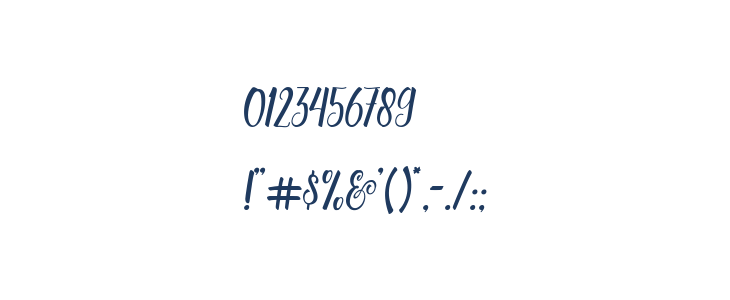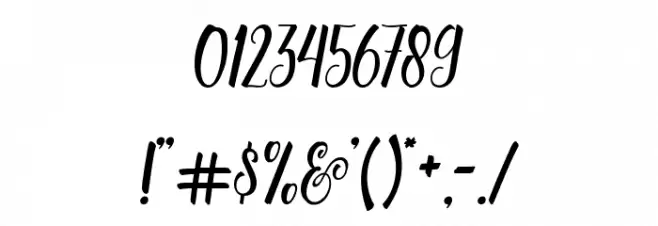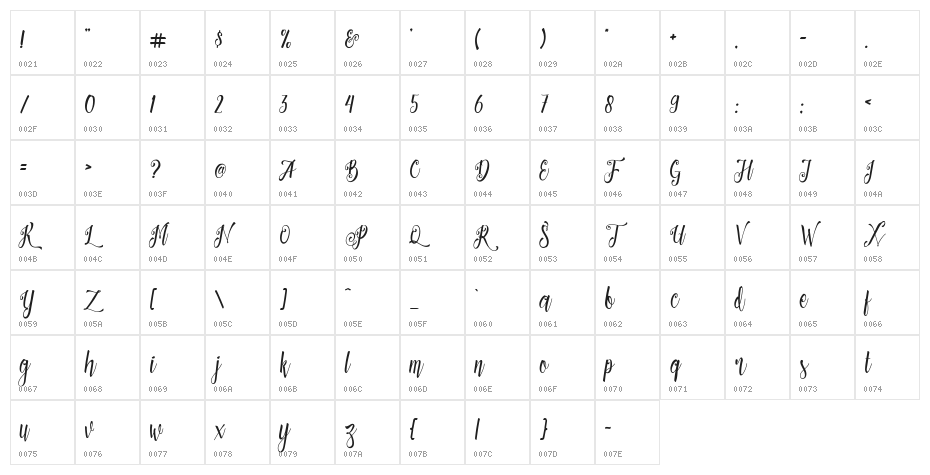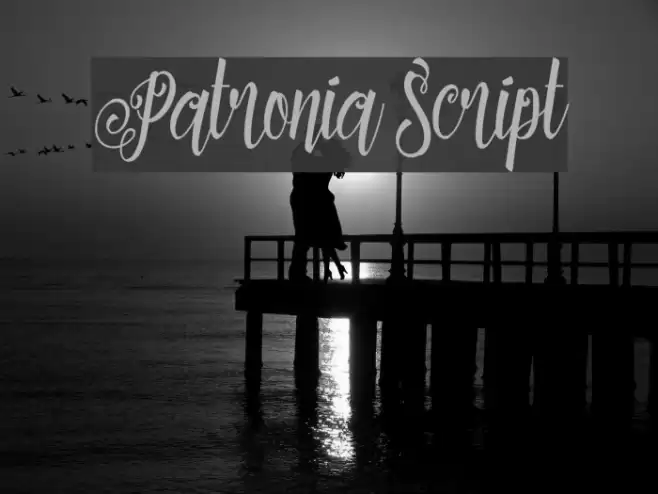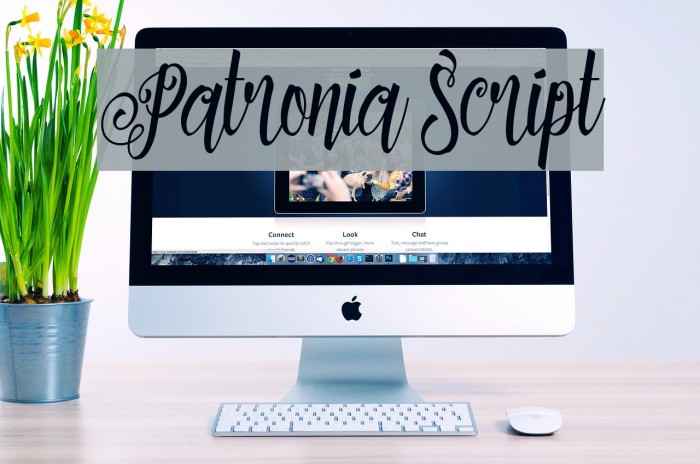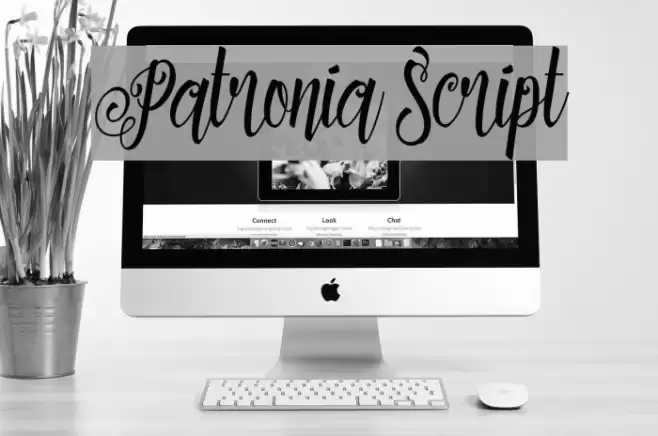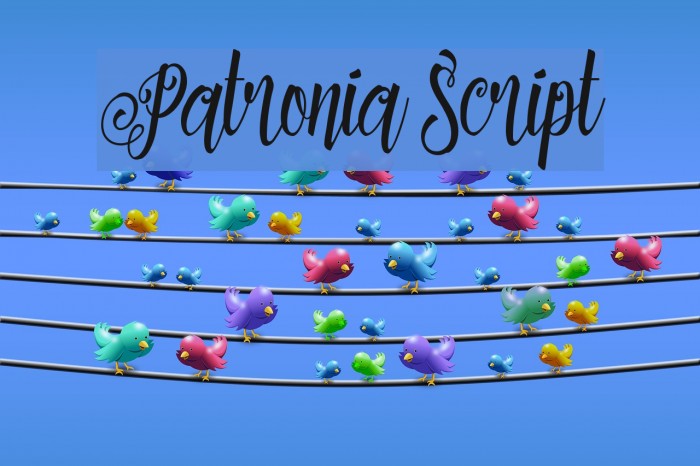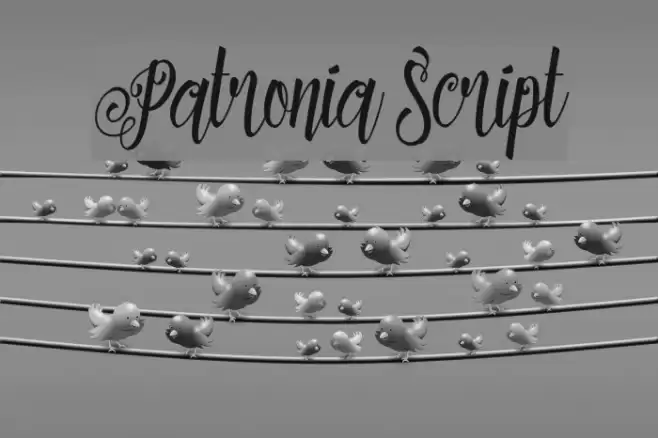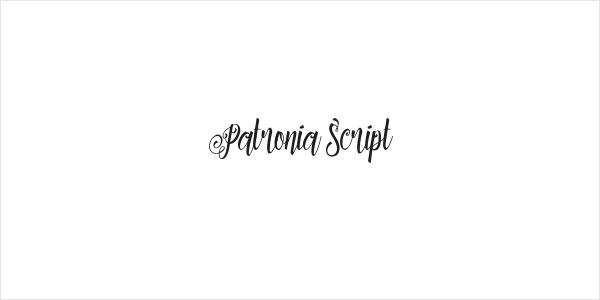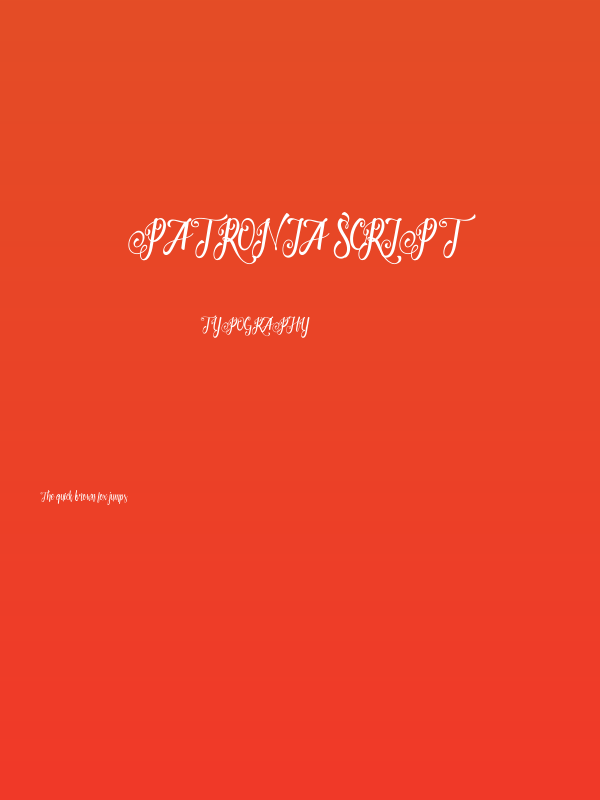
Patronia Script Font
Patronia Script Description
This elegant script font features a flowing, cursive style with intricate loops and swashes, giving it a sophisticated and artistic appearance. The uppercase letters are particularly ornate, with decorative flourishes that add a touch of luxury and charm. The lowercase letters maintain a consistent style, with smooth, connected strokes that enhance readability while preserving the font's decorative nature. The numerals and special characters are designed to complement the overall aesthetic, ensuring a cohesive look across all text elements. This font is ideal for projects that require a touch of elegance and creativity.